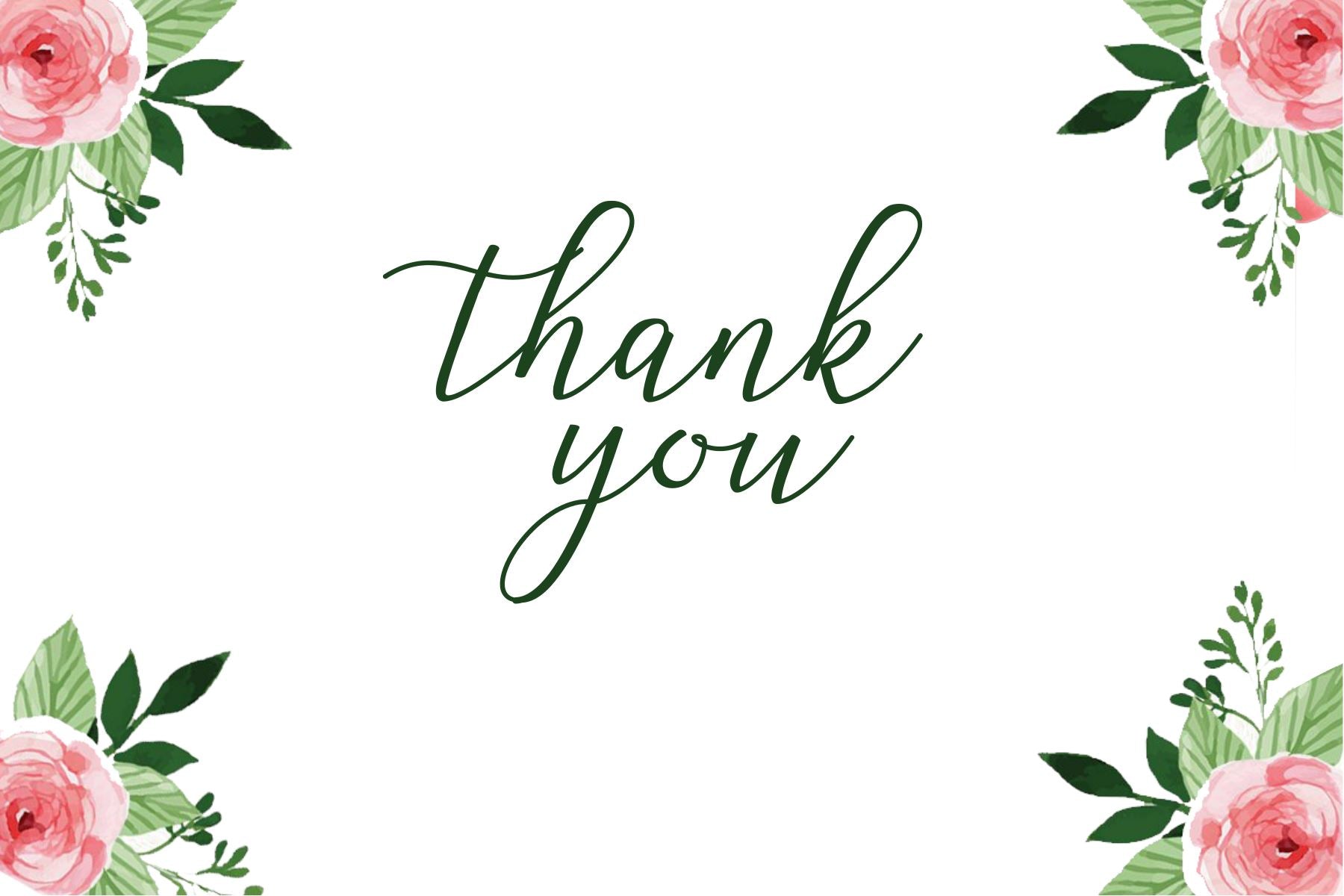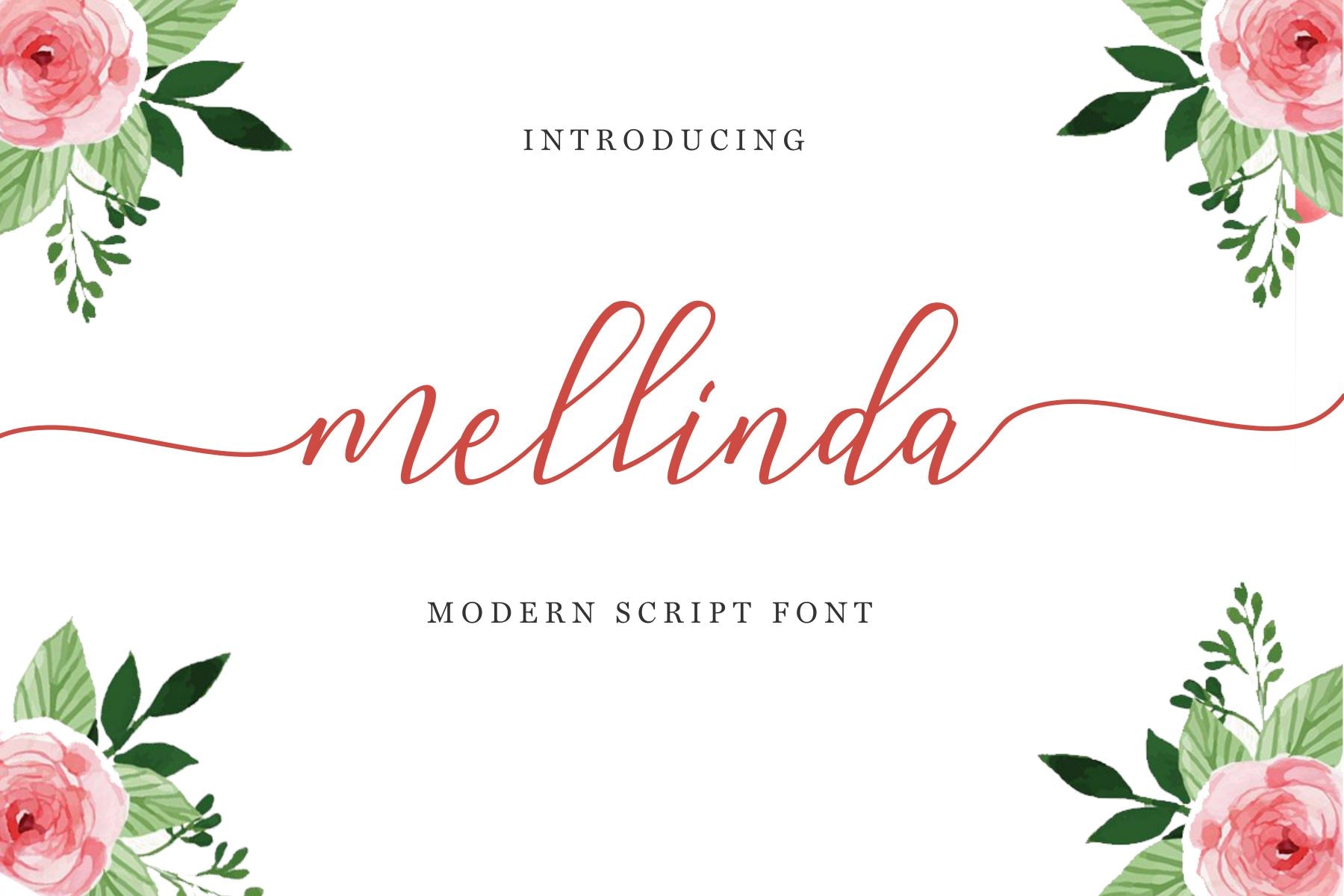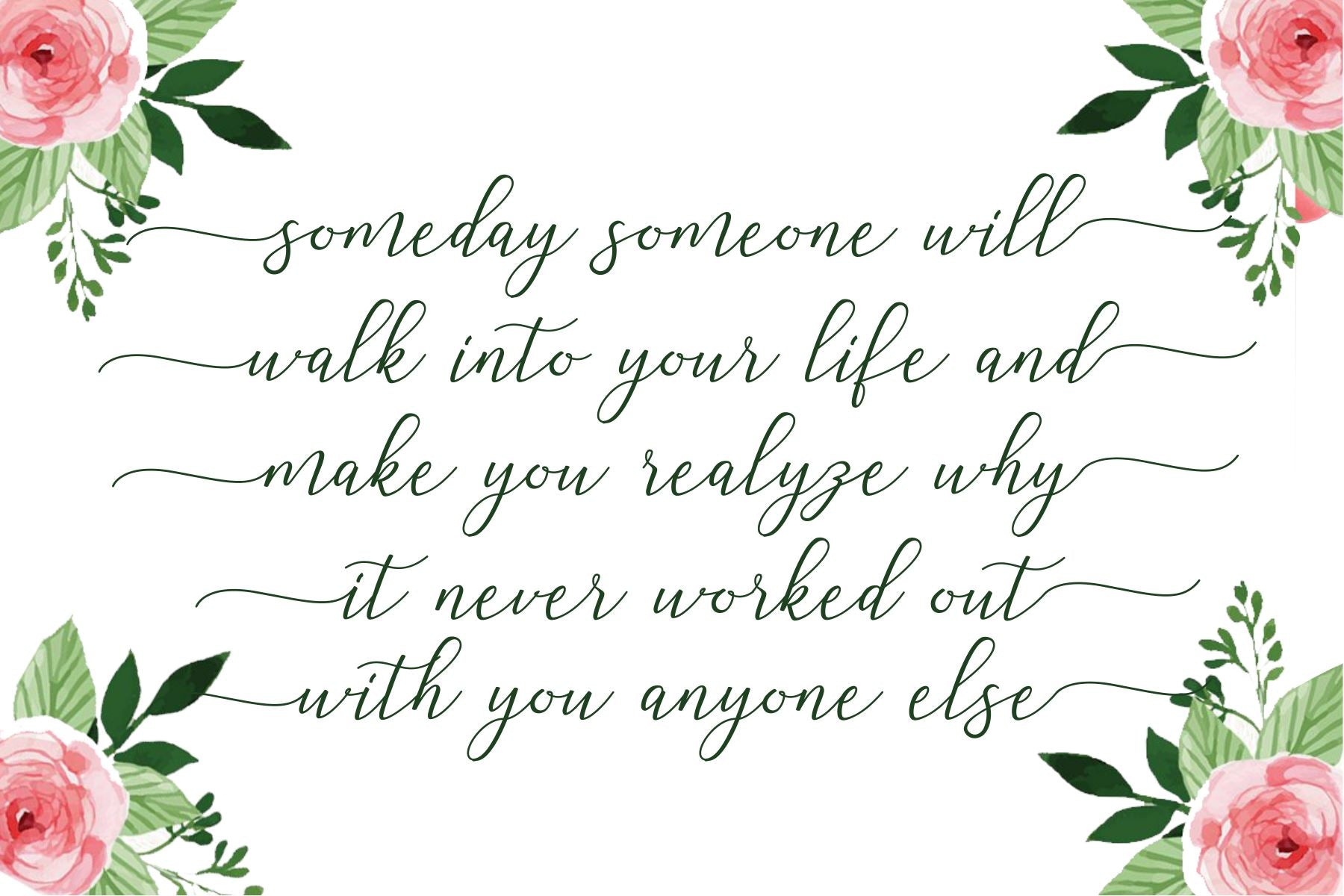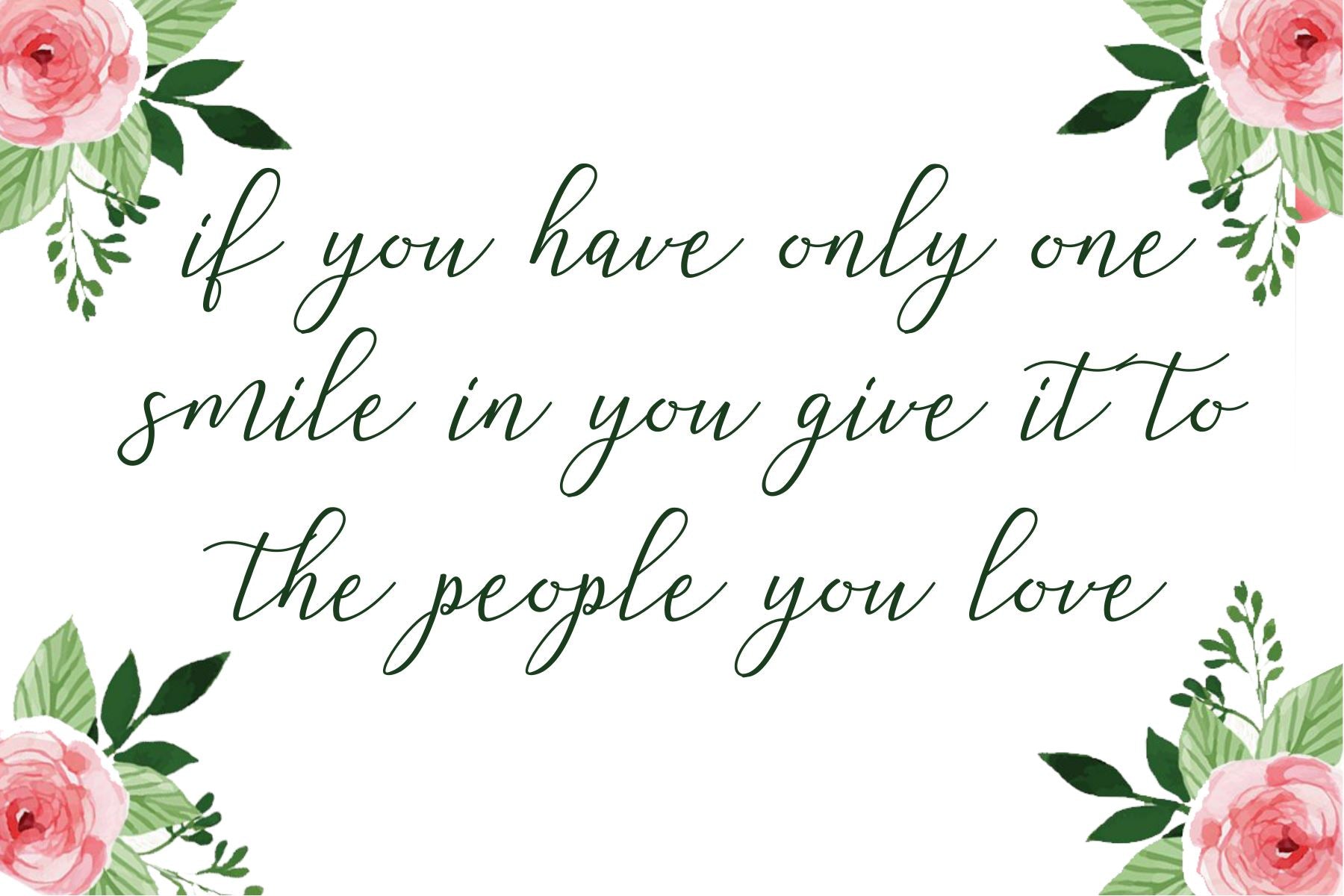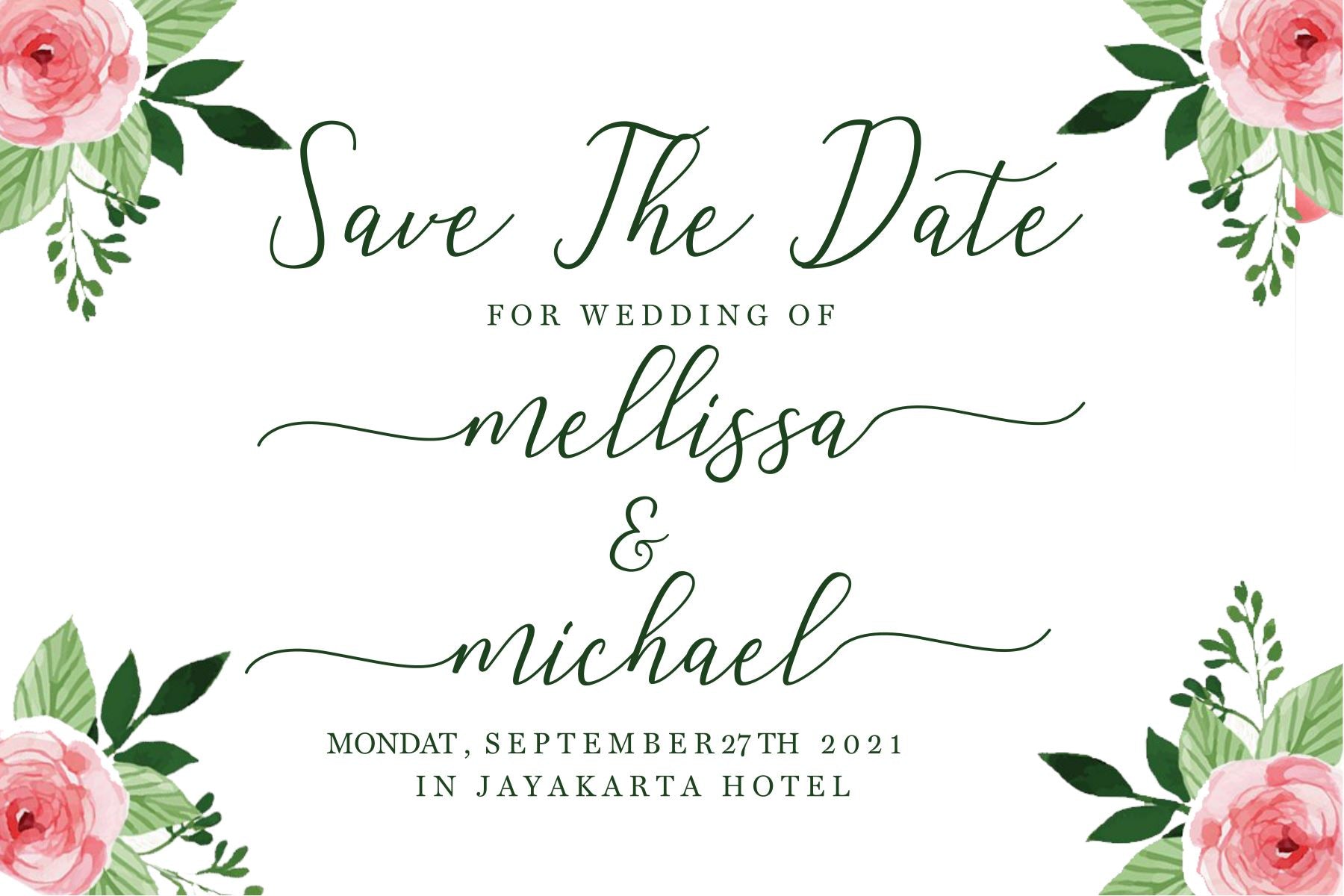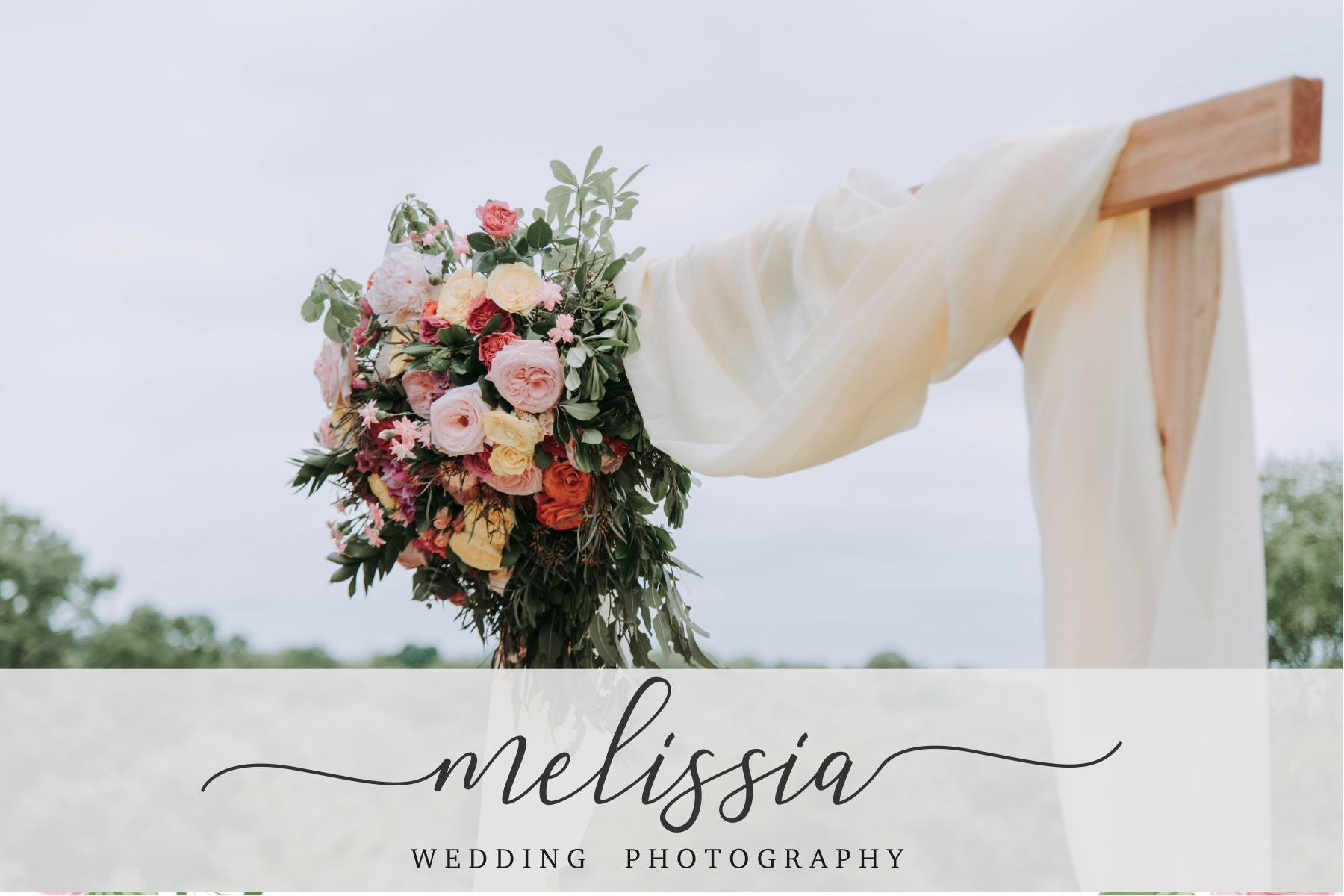
Mellinda Script
About Mellinda Script
Mellinda Script is a beautiful and sweet calligraphy typeface with characters that dance along the baseline. It will add a luxury spark to any design project that you wish to create! This font is PUA encoded which means you can access all of the amazing glyphs and ligatures with ease!